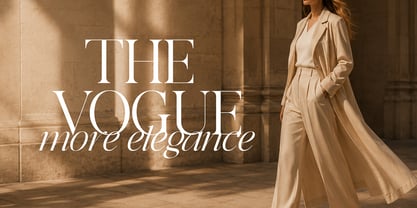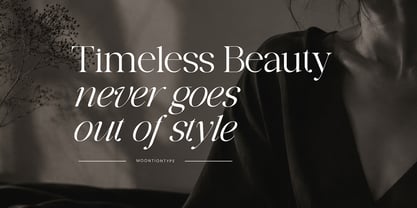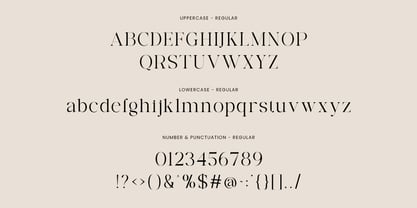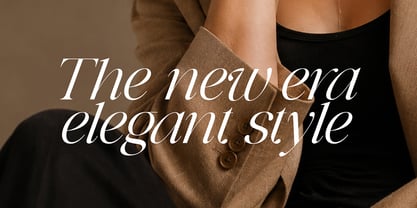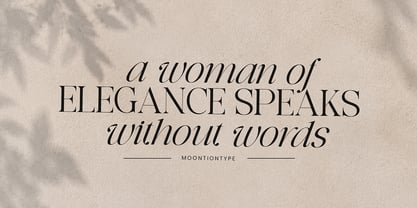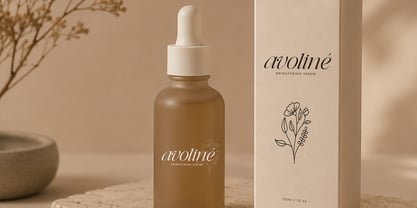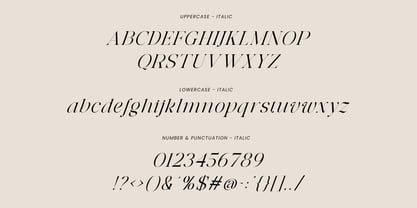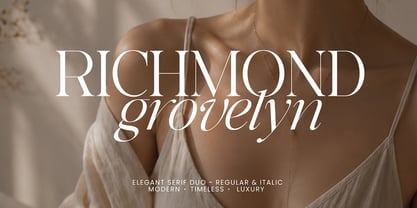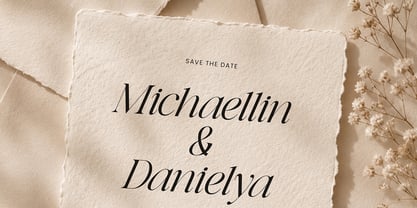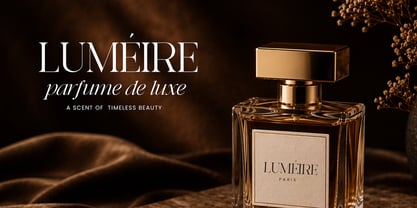
Richmond Grovelyn
by Moontiontype
The Richmond Grovelyn Font Family was designed by Dinda Nur Dwiyanti and published by Moontiontype. Richmond Grovelyn contains 2 styles and family package options. More about this family
Introducing Richmond Grovelyn, an elegant serif duo font crafted to bring sophistication, luxury, and timeless beauty to your creative projects.
Featuring a refined high-contrast serif paired with a graceful italic companion, Richmond Grovelyn is designed for premium branding, fashion editorials, wedding stationery, luxury packaging, beauty products, and modern logo design.
Its delicate curves, stylish ligatures, and sophisticated letterforms create a perfect balance between classic elegance and contemporary aesthetics, making it an ideal choice for designers who want their work to stand out with effortless luxury.
✦ Perfect For:
• Luxury Branding
• Fashion Editorials
• Logo Design
• Wedding Invitations
• Beauty & Skincare Packaging
• Perfume Branding
• Social Media Content
• Boutique & Lifestyle Brands
• Magazine Headlines
• Premium Marketing Materials
✦Font Features:
• Regular Serif
• Elegant Italic Style
• Uppercase & Lowercase
• Numbers & Punctuation
• Multilingual Support
Whether you're creating a luxury fashion campaign, a sophisticated wedding suite, or a timeless brand identity, Richmond Grovelyn delivers elegance with every letter.
Create beautiful designs with a font that embodies modern luxury, timeless sophistication, and effortless style.
Designers: Dinda Nur Dwiyanti
Foundry: Moontiontype